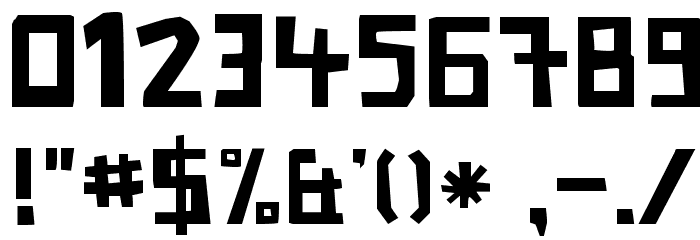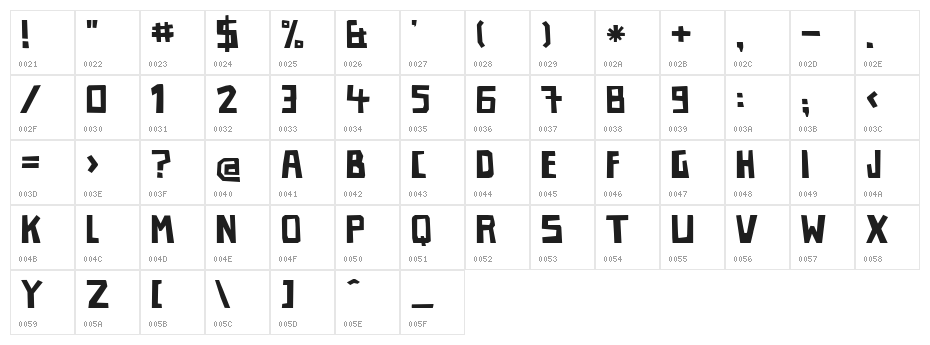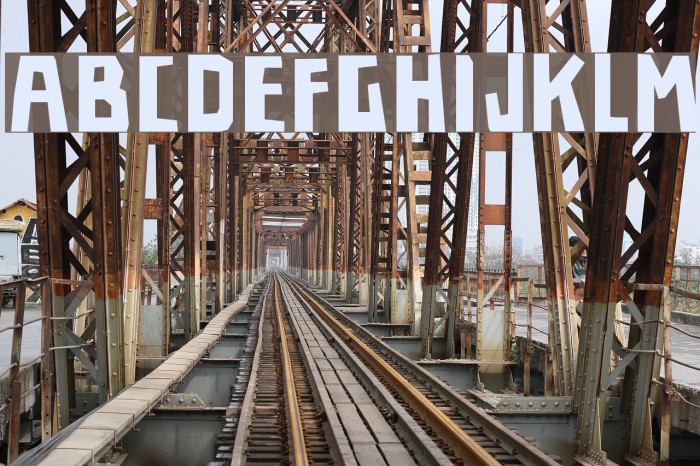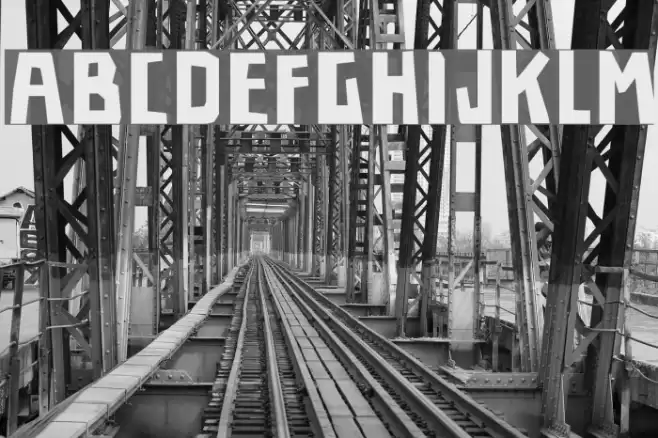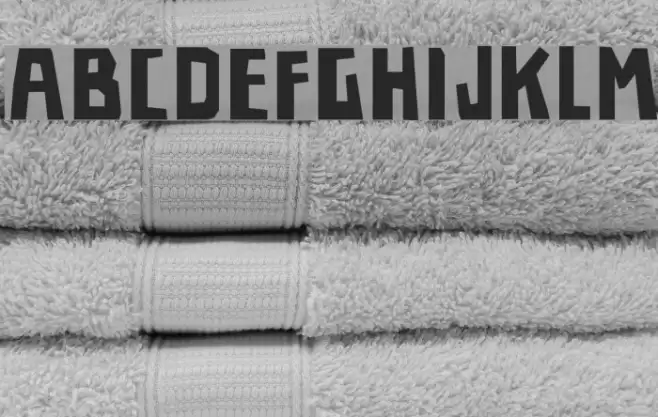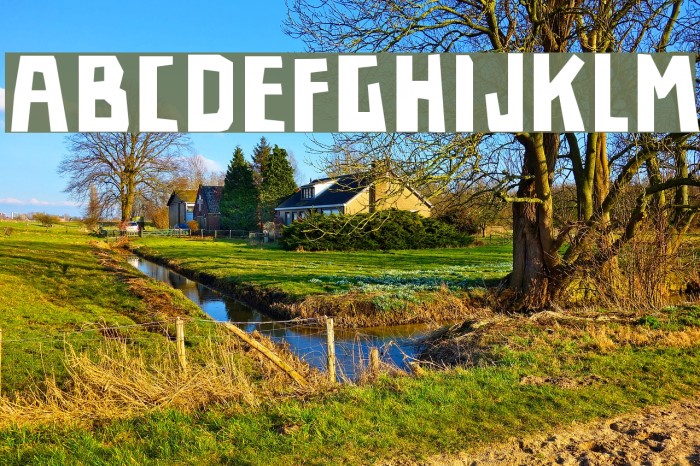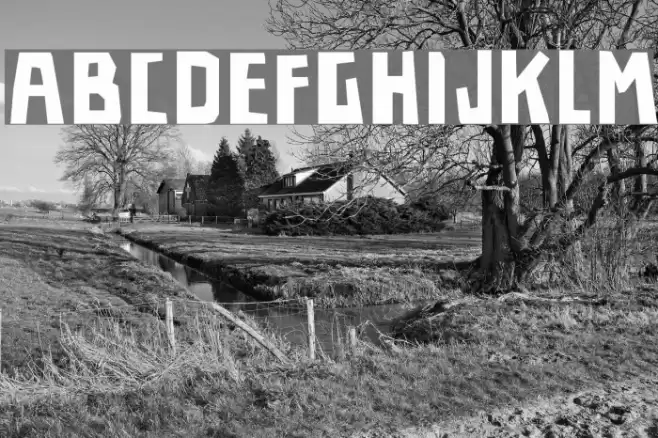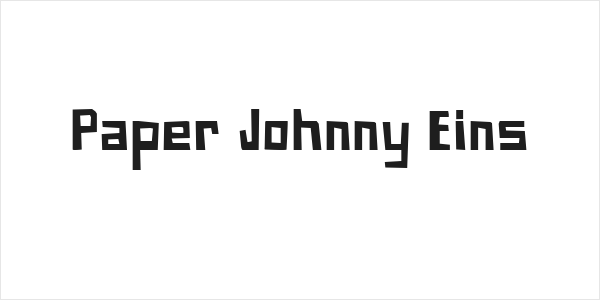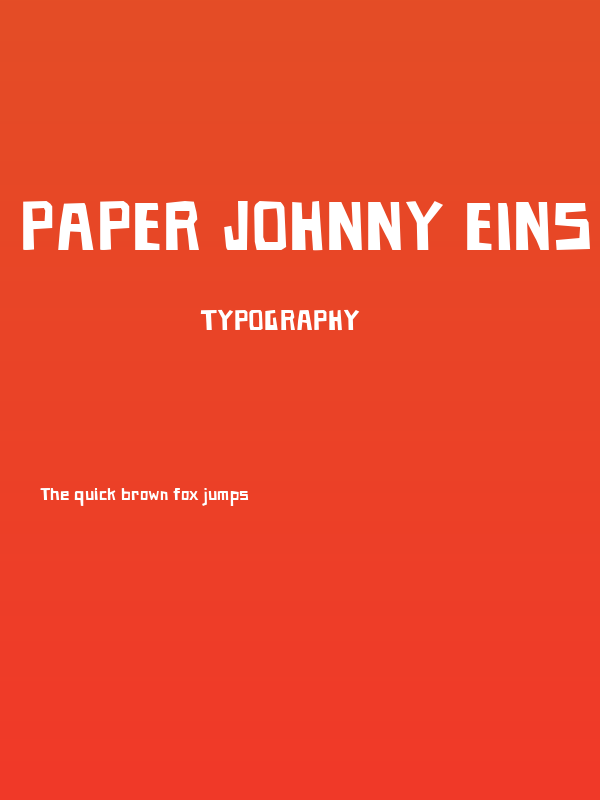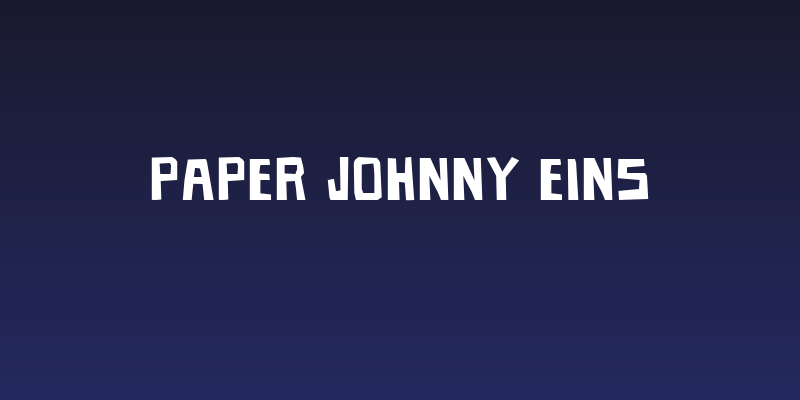
Paper Johnny Eins Font
Paper Johnny Eins Description
This font features a bold and angular design, characterized by its geometric and blocky appearance. The uppercase letters are particularly striking, with sharp edges and a strong presence. The lowercase letters maintain the same boldness, offering a consistent look across both cases. Numbers and special characters are designed with the same angular style, ensuring uniformity throughout the font. The overall design is modern and somewhat industrial, making it suitable for projects that require a strong visual impact. The font's unique style makes it stand out, with each character crafted to maintain readability while offering a distinct aesthetic.
| Proposed Projects | Ideal for posters, logos, branding materials, and any design requiring a strong, modern look. |